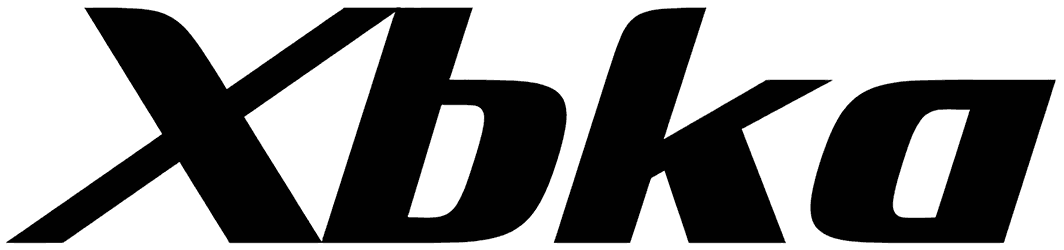
Xbka Font
Considering the whimsical style of Xbka, this logo font would definitely look perfect on a wide range of graphic content, including magazines, web page templates, wood engravings, or restaurant menus. This masterpiece can make your editorial projects look more interesting to the audience by adding a vibe of speedy, futuristic, or tenderness to them.